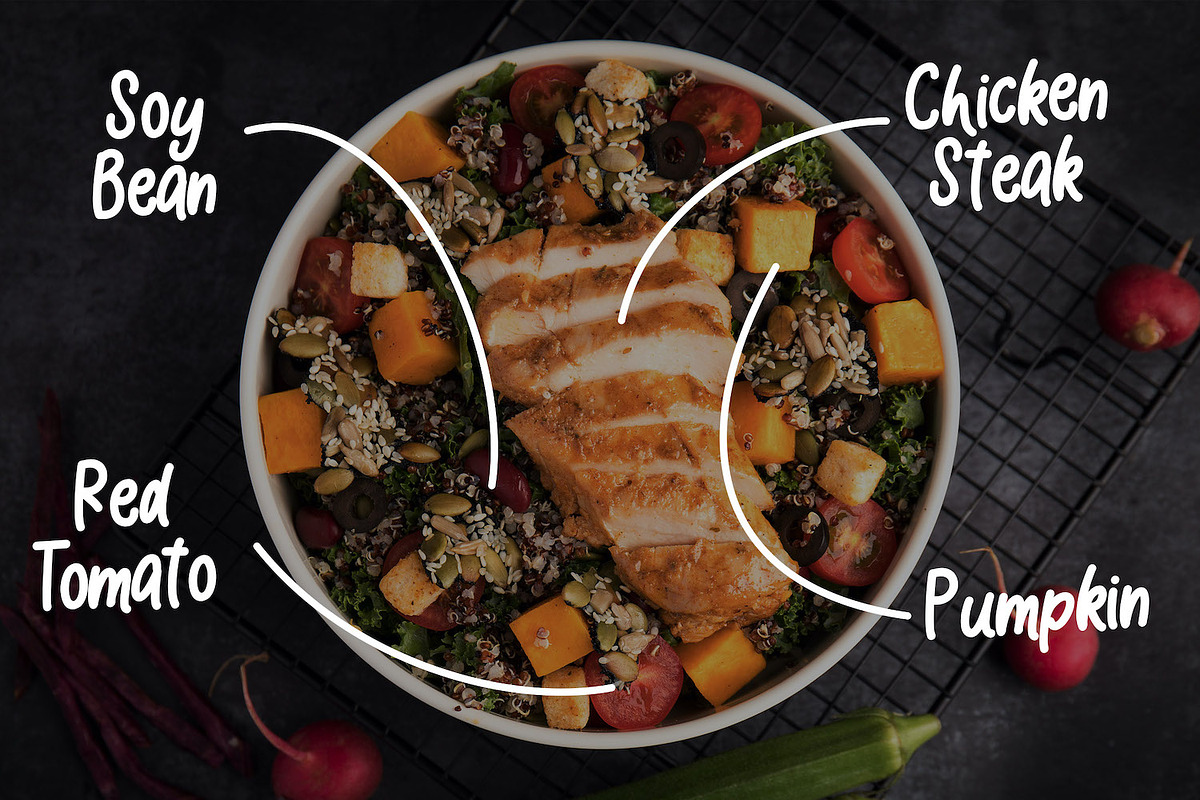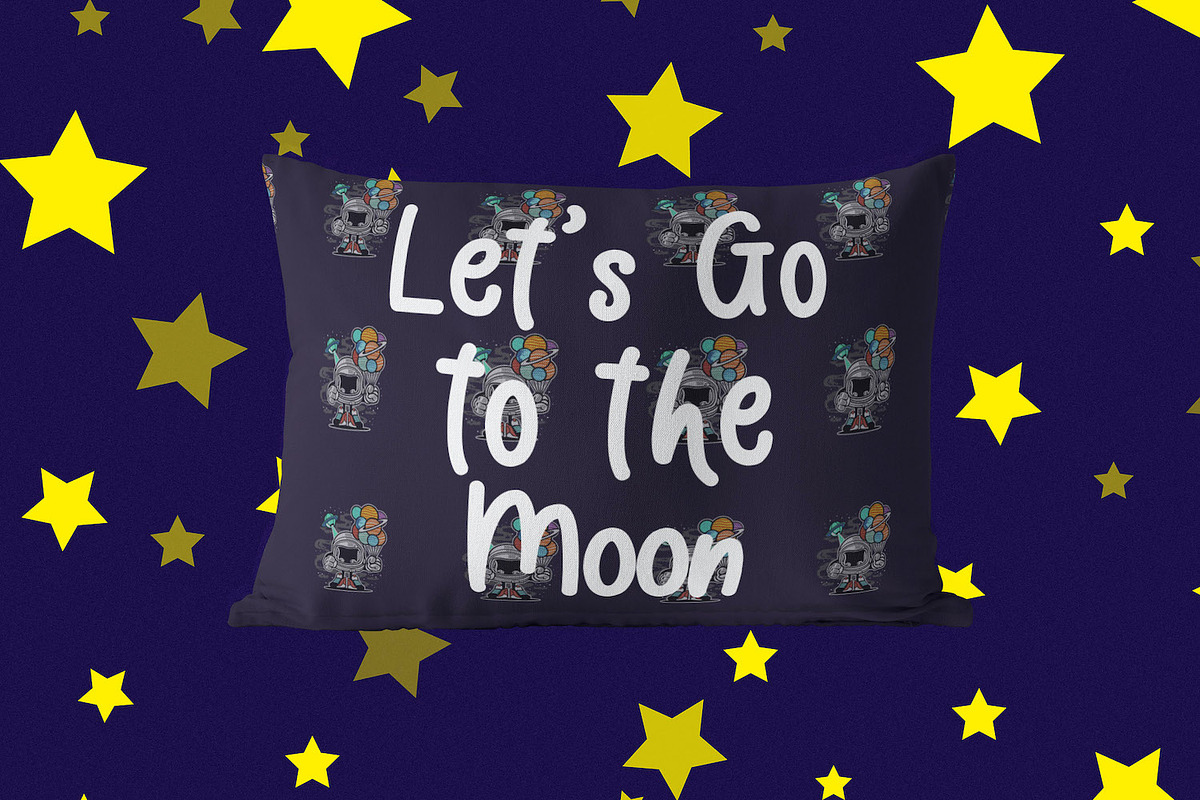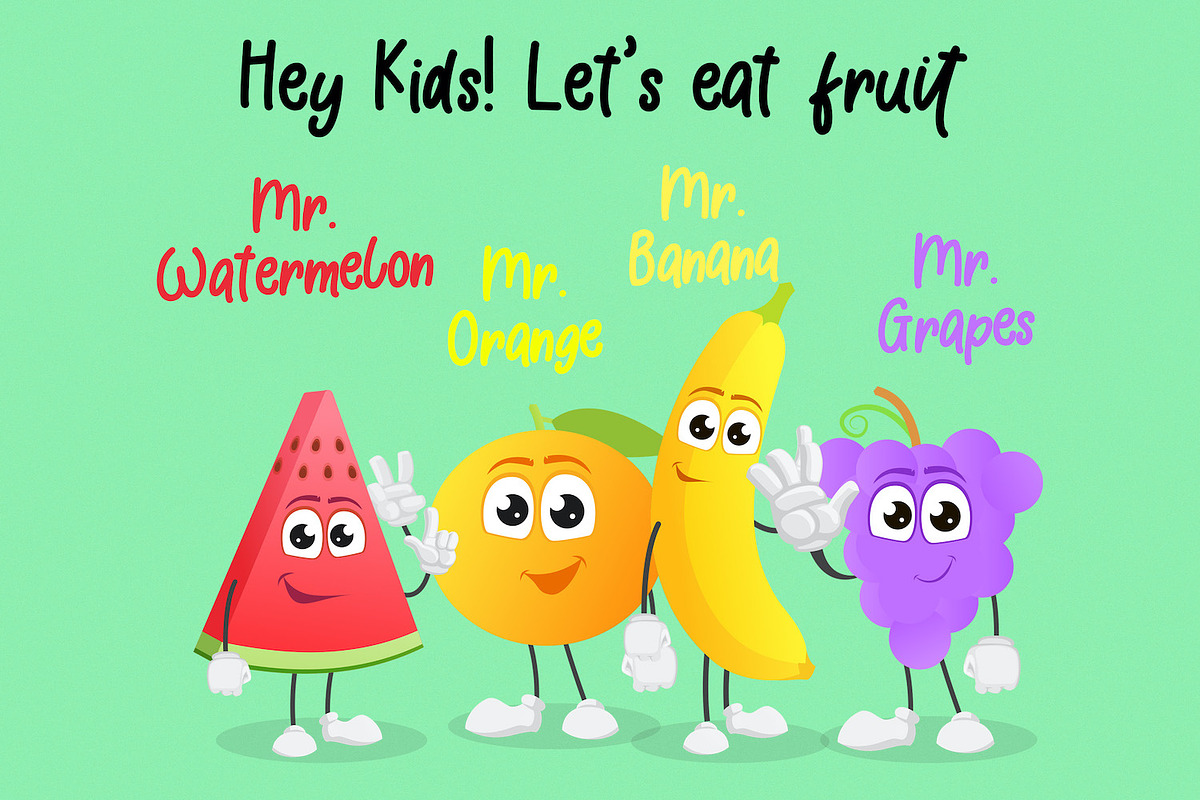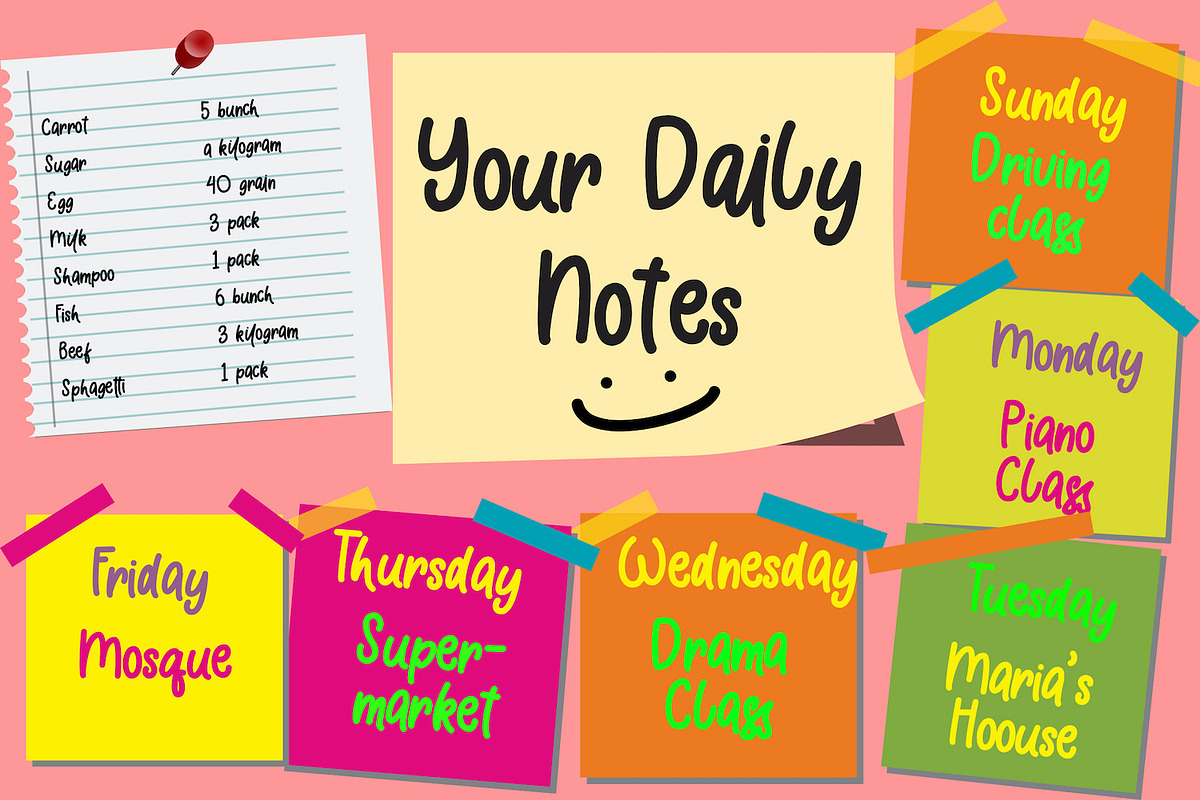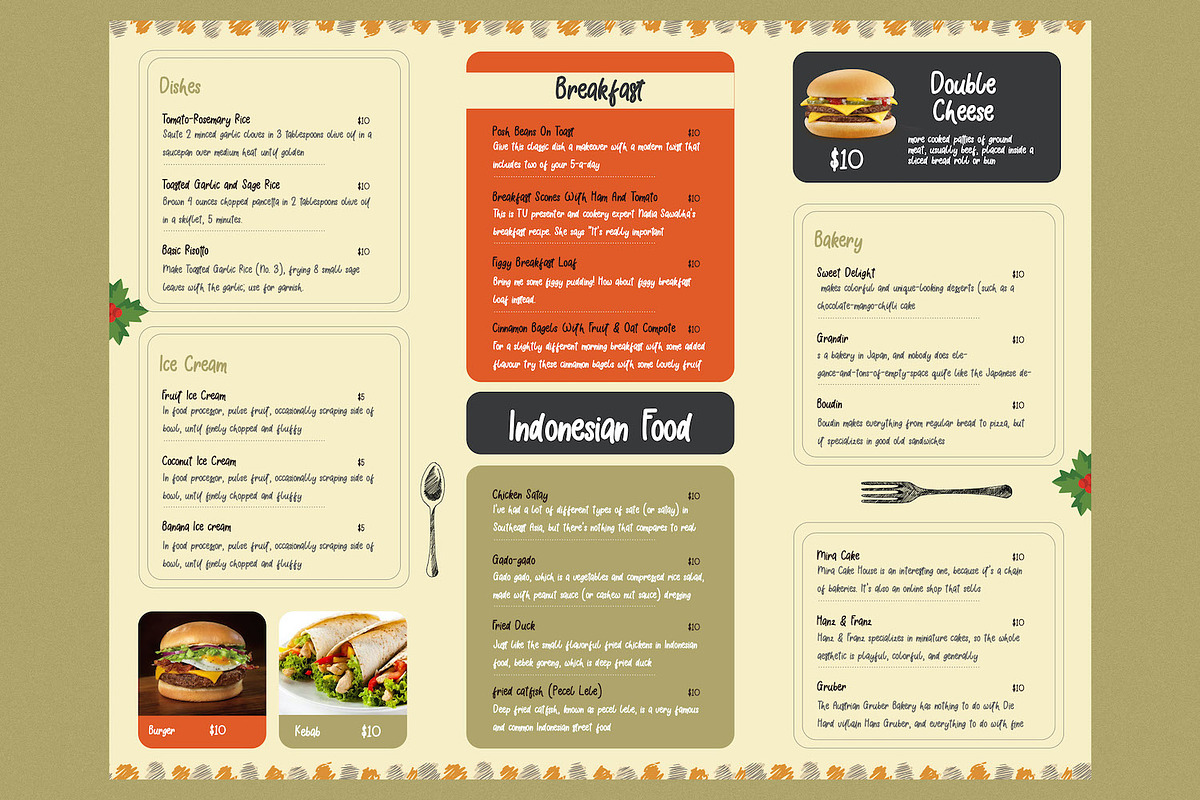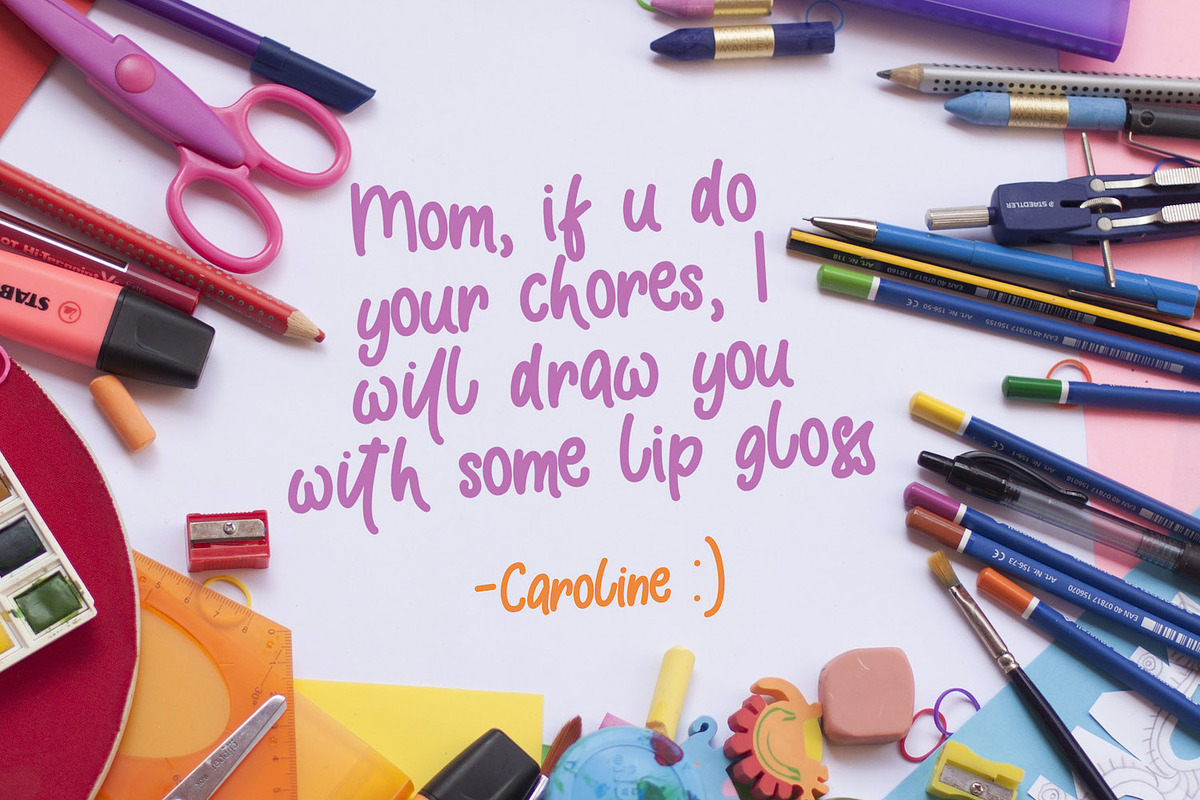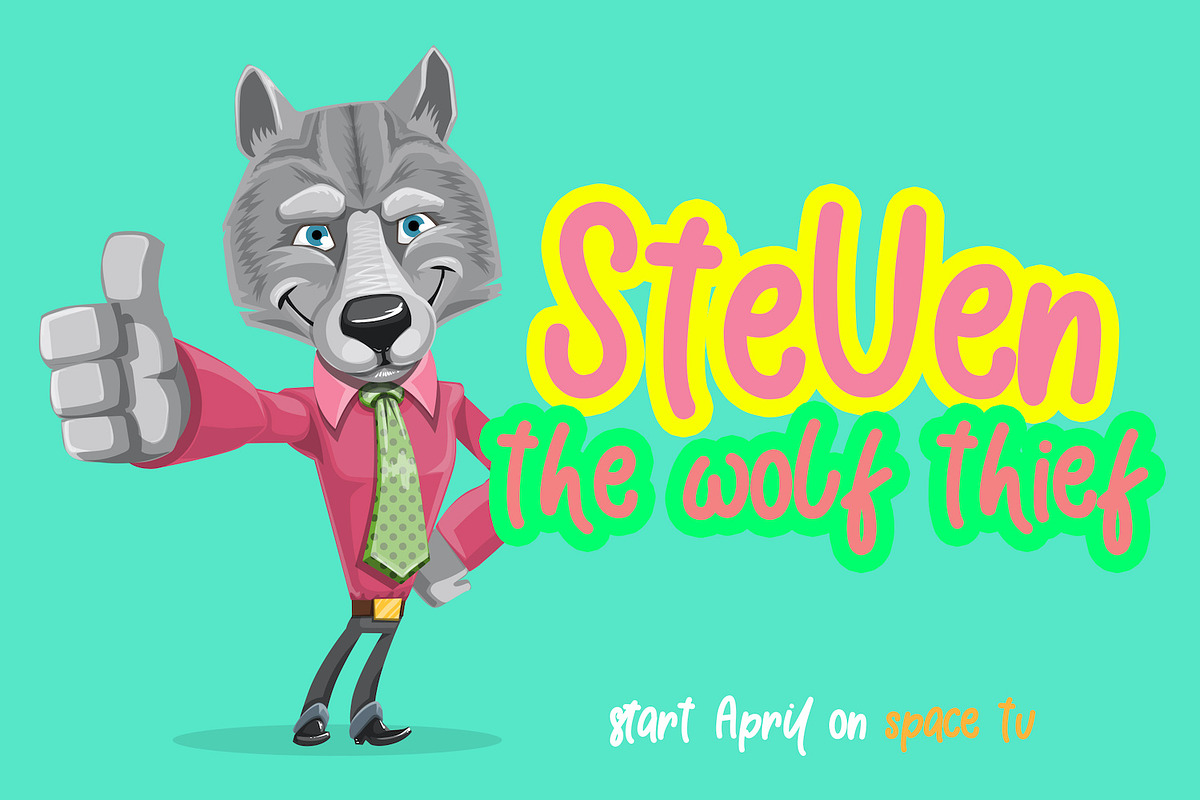
Comic Boys - Kids Bubble Font
Introducing Comic Boys - Kids Bubble Font
Comic Boys is a playful font with bubble style. This font is specially crafted for children, Boys, Kindergarten, Birthday, Kid, Cartoon, and Comic purposes.
The Comic Boys font has a unique concept and fun style.